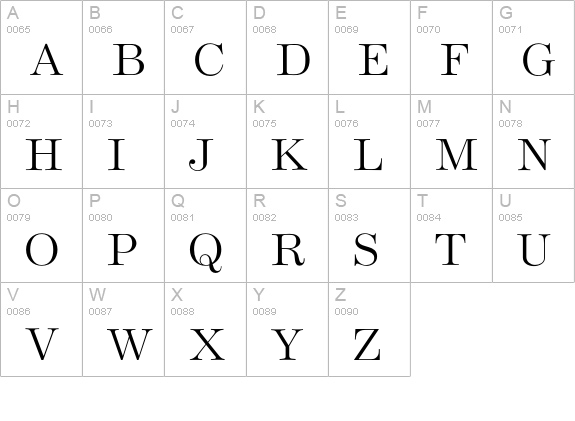
AndrichMinerva is a beautifully crafted and elegant font that exudes sophistication and style. With its intricate details and classic design, this font is perfect for adding a touch of luxury to any project. The sleek lines and graceful curves of AndrichMinerva make it a versatile choice for a wide range of design applications. What sets AndrichMinerva apart is that it is not only a stunning font, but it is also available for free download at FontsMarket.com. This means that you can bring a touch of class to your projects without having to break the bank. Whether you are working on a branding project, a wedding invitation, or a logo design, AndrichMinerva is sure to elevate your work to the next level. Download AndrichMinerva today and discover the endless possibilities that this exquisite font has to offer. Let its timeless charm and sophistication inspire your creativity and help you create designs that truly stand out.